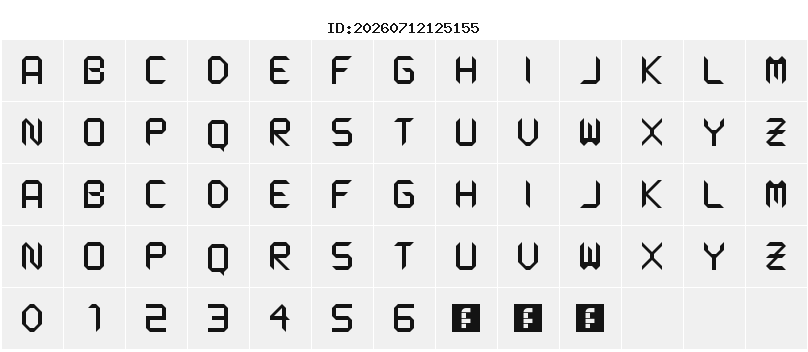
• Font Name: Machinebase
• Designer: Strikker
• Description: “Machinebase” was built with FontStruct
About Machinebase.ttf
Machinebase.ttf is a modern, elegant sans-serif font designed for ultimate readability and visual harmony. Perfect for branding, headlines, web design, and print materials.